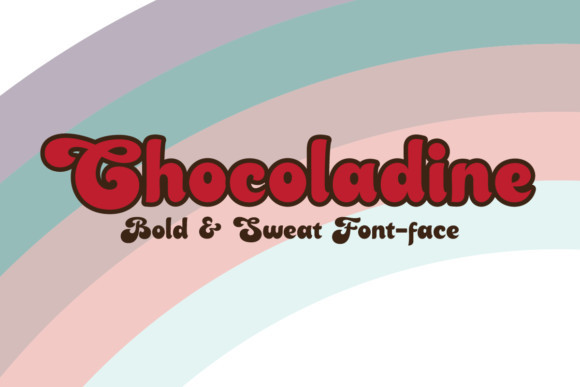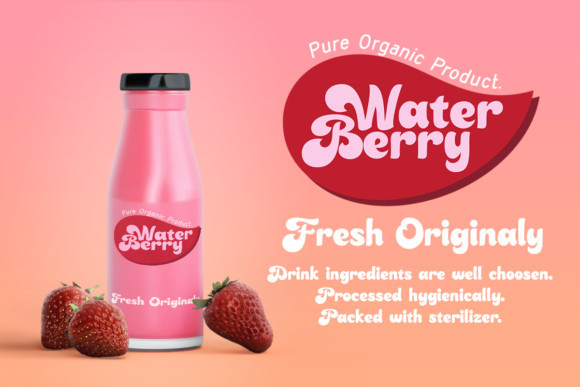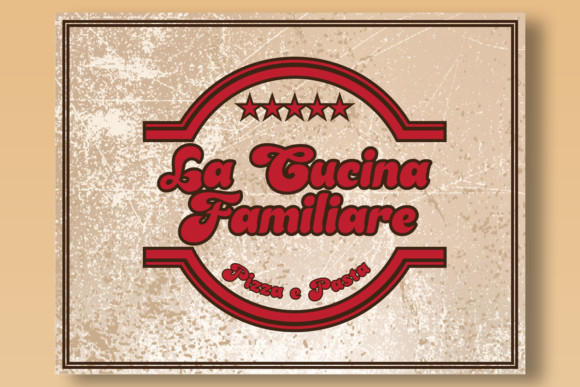
Chocoladine Font
Chocoladine is a gorgeous and bold handwritten font, crafted to give your headlines and logotype projects a stylish touch. This font reads as strong, confident, and dynamic and can add tons of nostalgic character to your designs.